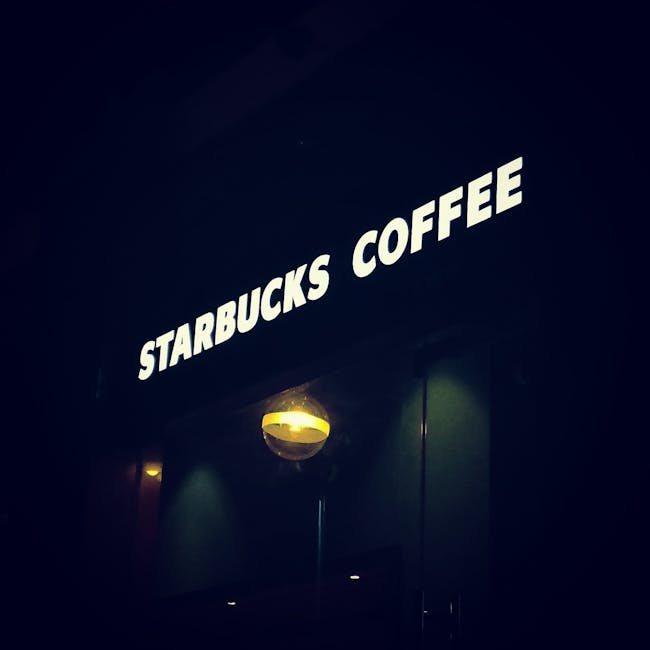
What is Brand Font Selection
What is Brand Font Selection?
Brand font selection refers to the process of identifying and choosing typefaces that reflect and enhance the identity of a brand. This choice plays a critical role in shaping consumer perceptions and establishing a recognizable visual language. A brand’s font can communicate values, evoke emotions, and create consistency across various platforms and marketing materials. It encompasses an understanding of typography, aesthetics, and the brand’s overall message, ensuring that every letter aligns with the brand’s identity and resonates with its target audience.
Key Concepts in Brand Font Selection
Understanding brand font selection requires familiarity with several key concepts:
• Typeface vs. Font: Traditionally, a typeface is a family of related fonts, while a font refers to a specific style and size within that typeface. However, modern usage often sees “font” used interchangeably with “typeface,” particularly in digital contexts. This distinction is essential for making informed design decisions.
• Legibility: Legibility refers to how easily text can be read and is crucial for conveying messages clearly. Factors such as font size, contrast, and line spacing also significantly impact legibility, especially in different contexts like print and digital media.
• Personality: Each typeface carries its own personality, influencing how a brand is perceived. For example, serif fonts often convey tradition and reliability, while sans-serif fonts may evoke a more modern and clean feel. Research has shown that certain font styles can elicit specific emotional responses, further impacting consumer engagement.
• Brand Cohesion: The selected fonts should align with other branding elements—such as logos, colors, and imagery—to create a unified identity.
The Importance of Typography in Branding
Typography is a foundational element of branding. It does not merely serve to display content but can significantly influence consumer behavior and brand recall. Key points to consider include:
• First Impressions: The right typography creates a strong first impression, thereby affecting how potential customers perceive a brand immediately.
• Emotional Connection: Different fonts can evoke specific emotions, aiding in establishing a deeper connection with the audience.
• Differentiation: Unique font choices can help a brand stand out in a crowded marketplace, making it more memorable than competitors.
Practical Applications of Brand Font Selection
Brand font selection has practical applications that enhance various marketing aspects:
• Digital Media: Fonts on websites and apps can dramatically change user experience and engagement levels.
• Print Media: From business cards to brochures, font choice can influence the professional appearance and effectiveness of printed materials.
• Advertising Campaigns: Consistent typography across ads reinforces brand recognition and builds a cohesive narrative.
Methodologies for Choosing the Right Font
Choosing the right font involves several methodologies:
• Audience Research: Understanding the preferences and expectations of the target demographic can guide font selections.
• Brand Identity Analysis: Assessing the core values, mission, and vision of the brand informs the emotional tone of the typography.
• Usability Testing: Testing different font options with actual users helps uncover preferences regarding readability and aesthetic appeal. Gathering feedback through surveys or focus groups is crucial for interpreting user responses effectively.
Related Terminology in Typography and Branding
Familiarity with relevant terminology enhances understanding of font selection:
• Serif and Sans-Serif: Categories of typefaces, with serifs featuring small lines at the ends of characters, while sans-serif fonts are cleaner and lack those lines.
• Kerning: The spacing between individual letters, which can drastically affect readability.
• Leading: The space between lines of text; appropriate leading enhances legibility and aesthetics.
The Role of Brand Font Selection in Different Industries
Different industries often have distinct typography norms; however, there’s increasing variability as brands seek to challenge traditional norms:
• Technology: Typically favors modern sans-serif fonts that convey innovation.
• Finance: Often uses serifs to convey stability and trustworthiness, yet some brands experiment with sans-serif options.
• Fashion: May employ elegant and stylish typefaces to communicate sophistication, but various brands within the same industry can adopt very different styles.
How to Implement Brand Font Selection Effectively
Implementing brand font selection requires a strategic approach:
1. Define Brand Attributes: Outline the brand’s personality traits.
2. Create Font Pairings: Choose a primary font and complementary supporting fonts. For example, pairing a serif font with a sans-serif font can create visual interest while maintaining readability.
Brand font selection is a crucial component of establishing and maintaining a brand’s identity. By thoughtfully considering typography, businesses can communicate their values, resonate with their target audiences, and create unforgettable visual experiences. Brands may need to evolve their typography as they grow or adapt to new markets, and awareness of strategic font selection practices can lead to lasting impacts on brand recognition and loyalty.